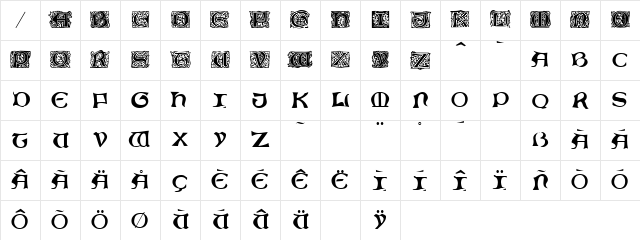
Jeff-Nichols Regular
Design Context for Jeff-Nichols
Jeff-Nichols is a composed and adaptable typeface that performs quietly and consistently across a wide range of design contexts.
Pro Tip: Use Jeff-Nichols in both headline and body roles to test its range before committing to a single application.